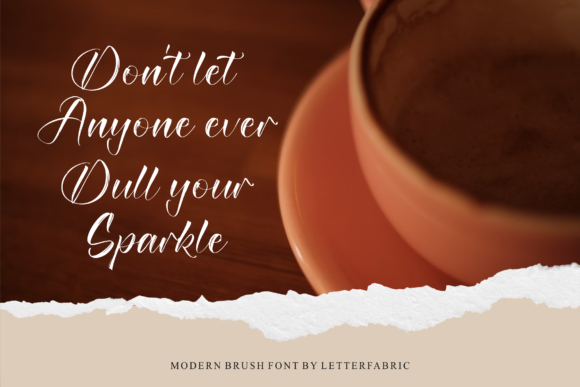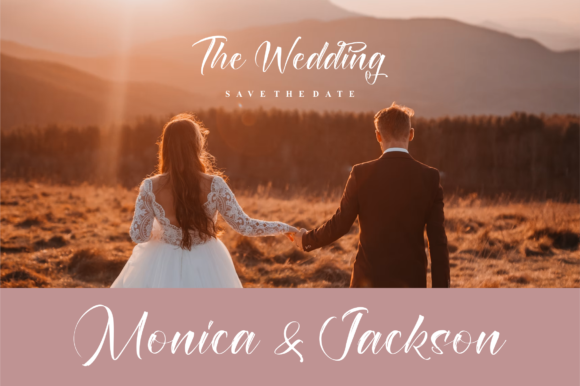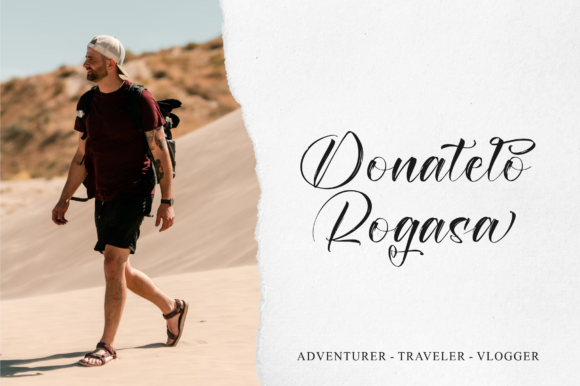
Introduction to Skylaga Font
Skylaga is a delicate and fashionable script font.
It is perfect for any branding project such as logos, t-shirt printing, creative products, and more This font is PUA encoded which means you can access all of the glyphs and swashes with ease.
Key Features of Skylaga Font